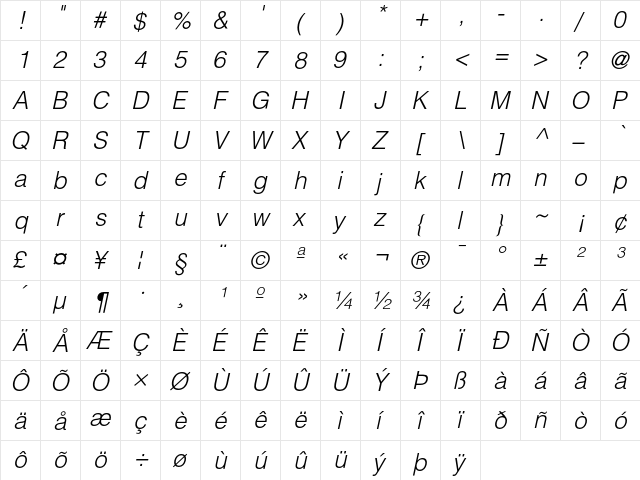
Helvetica Light Oblique
Design Context for Helvetica Typeface
Helvetica is a composed and adaptable typeface that performs quietly and consistently across a wide range of design contexts. Its italic angle brings a sense of urgency and motion to the letterforms. Its slender proportions lend an understated elegance to any composition.
Pro Tip: Try Helvetica for annotation and caption copy alongside an upright companion — the contrast in angle creates a dynamic but ordered typographic system.